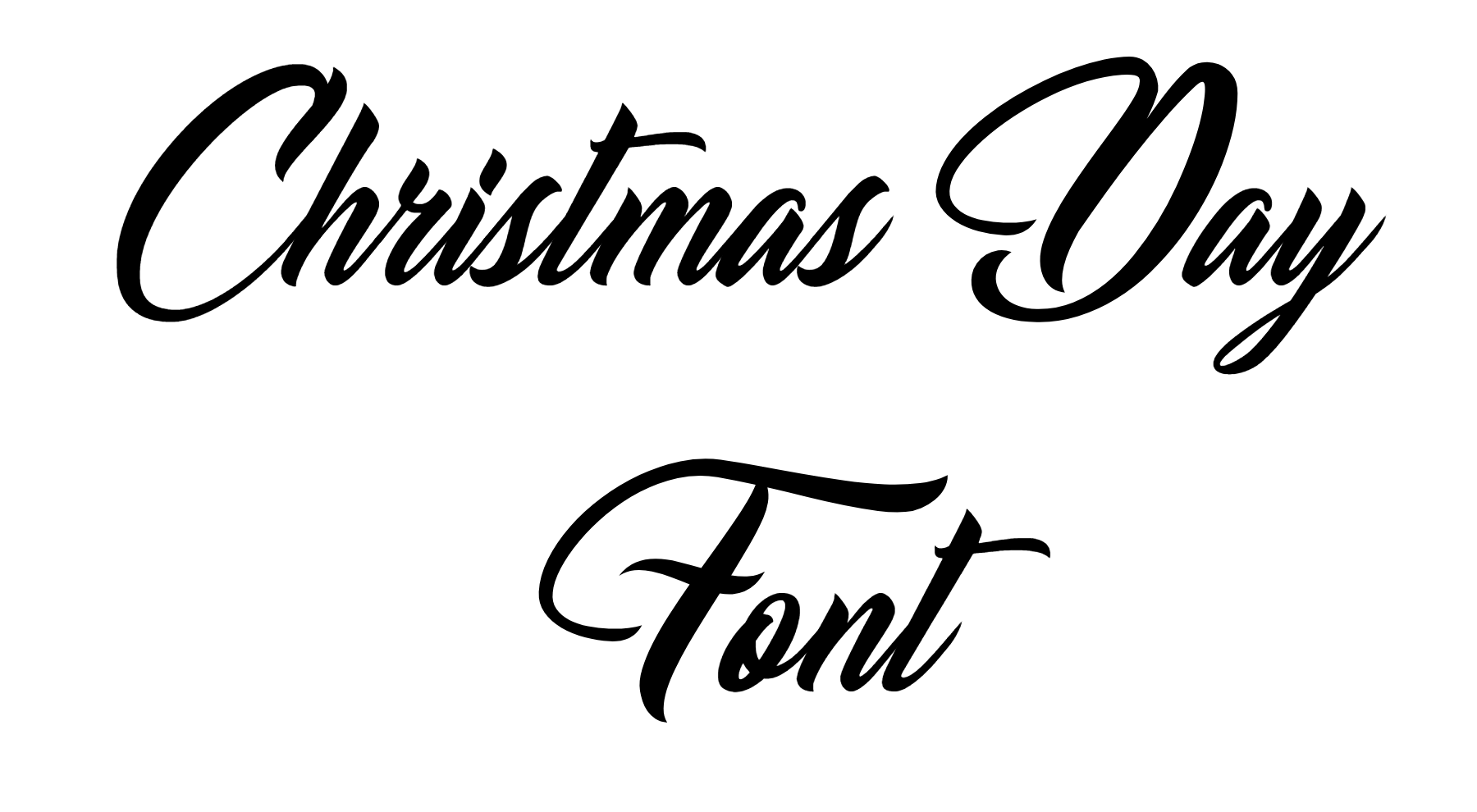
Christmas Day
Christmas Day is a calligraphy font designed by Billy Argel (2017). It has that hand-lettered, flowing feel people look for when regular type seems too stiff. It's a free download, and you can try it with your own text in the preview above first.
- Designer: Billy Argel
What You Can Type With Christmas Day
With complete upper and lowercase letters and all ten digits, Christmas Day is ready for real wording, not just a single headline. Punctuation is limited, so look at the character map if you need a specific symbol. Thanks to its accented letters, it also works for Spanish, French, German, Portuguese and Italian, not just English.
Where Christmas Day Works Best
Think of Christmas Day for wedding invitations, certificates and elegant quotes. The file has no kerning data, so in logos and big titles check pairs like AV, To and Wa and tighten the spacing by hand. Script fonts read best in short bursts, so keep it to names, titles and one-line quotes. Skip all caps: script capitals are drawn to start a word, not to fill one.
Who designed Christmas Day font?
Does Christmas Day support accented letters?
Yes. Christmas Day includes the accented letters needed for Spanish, French, German, Portuguese and Italian, so it works for more than just English.